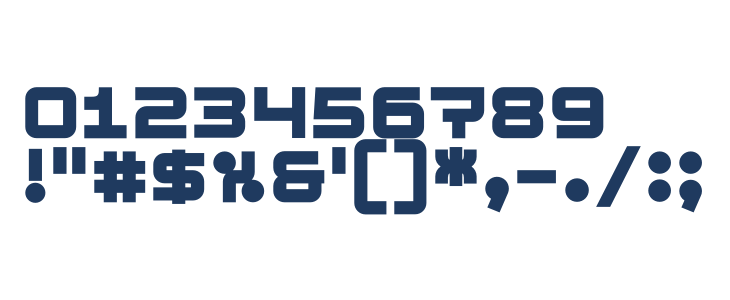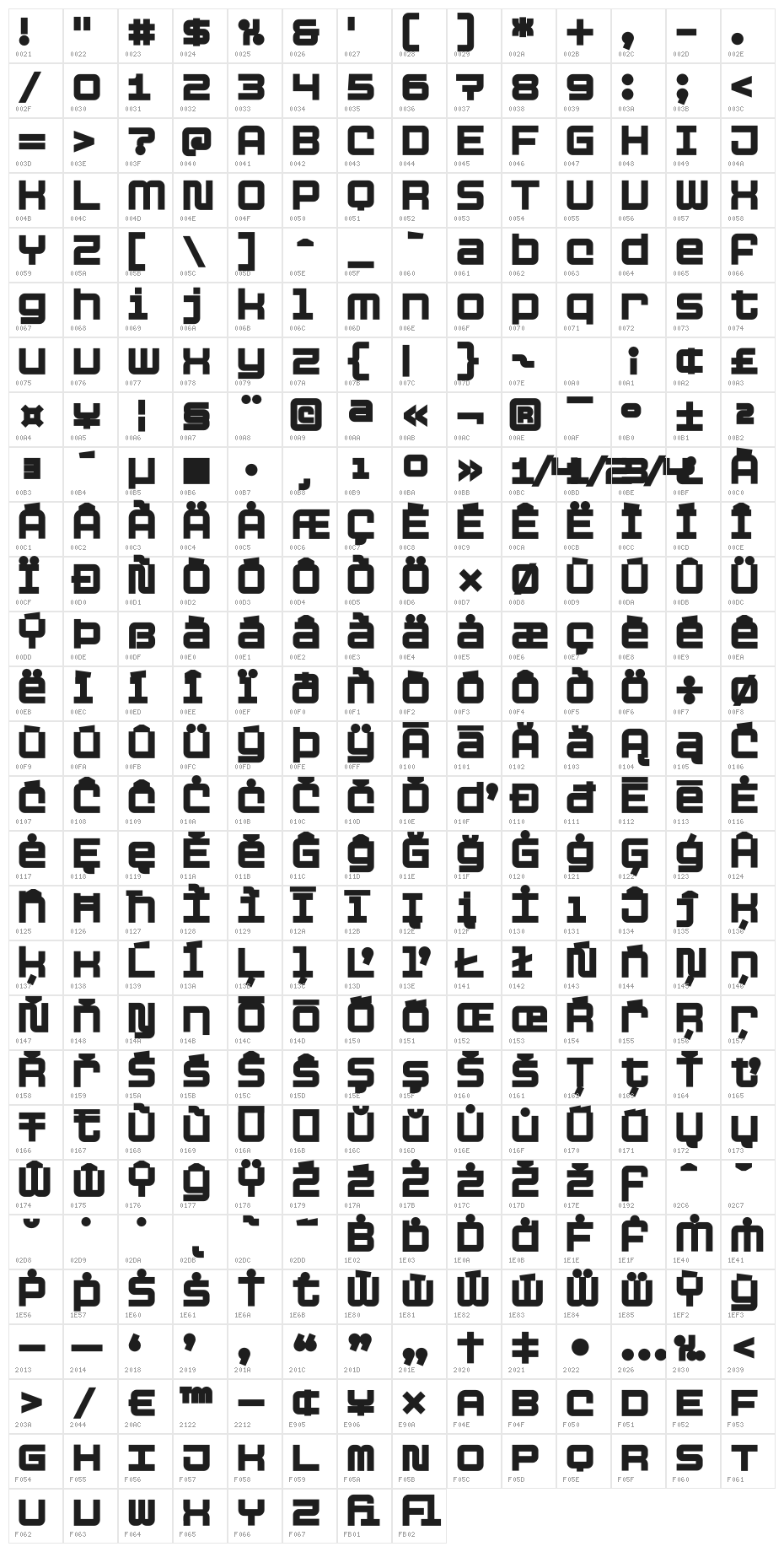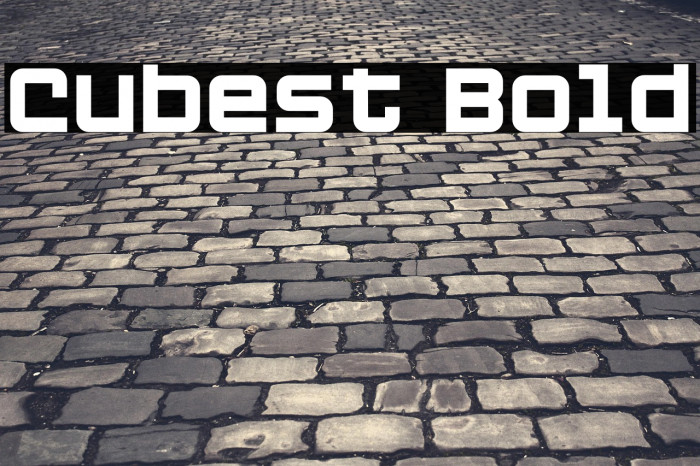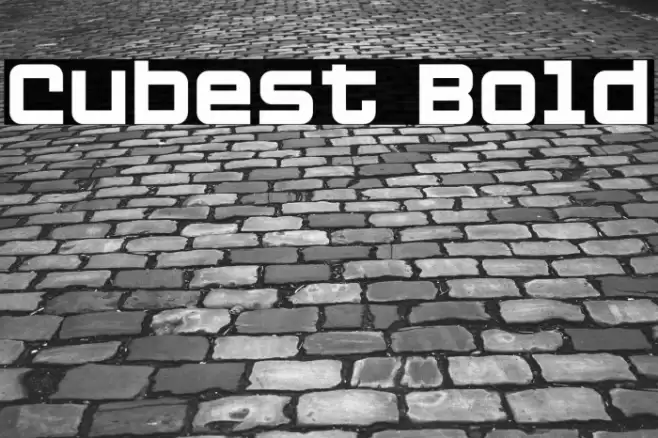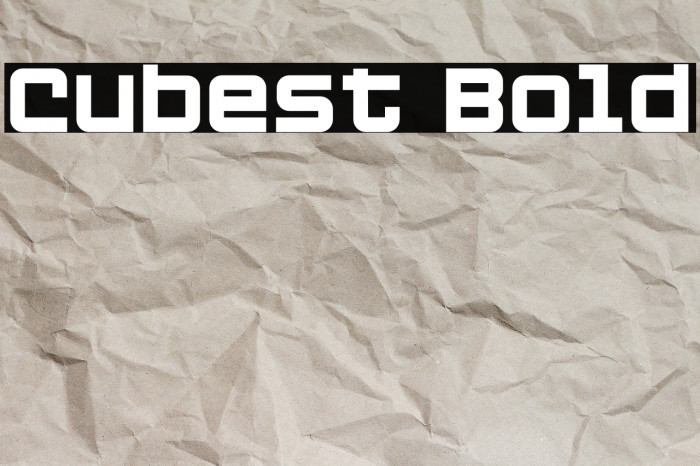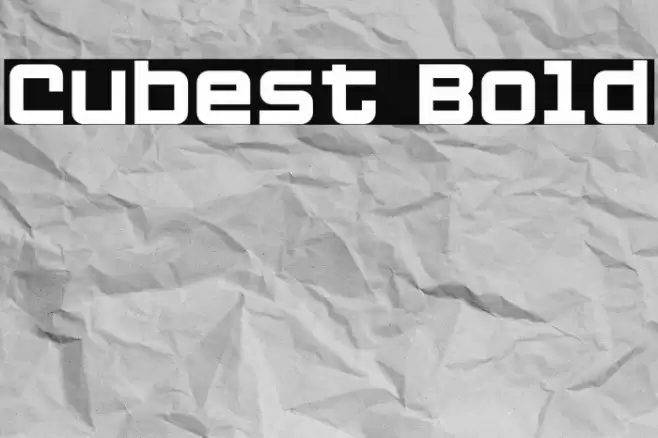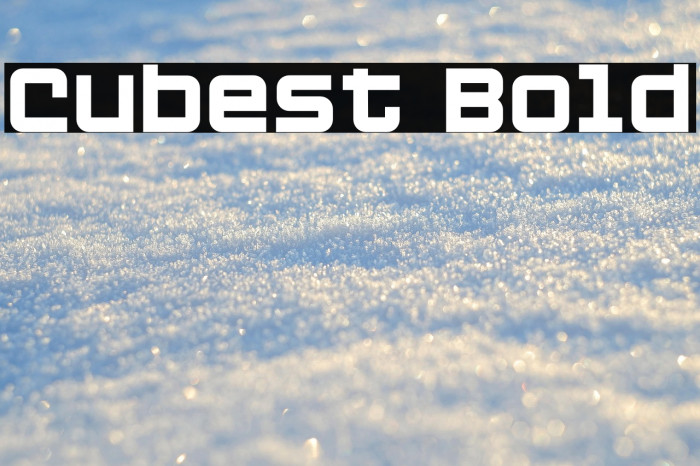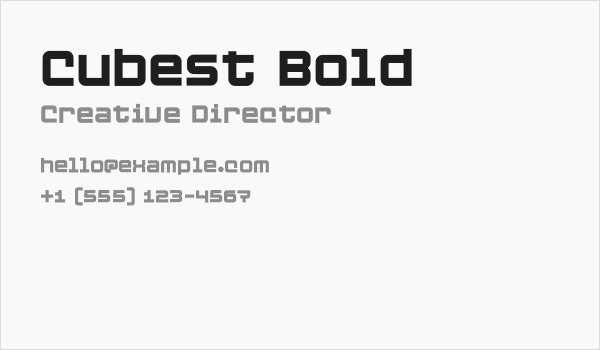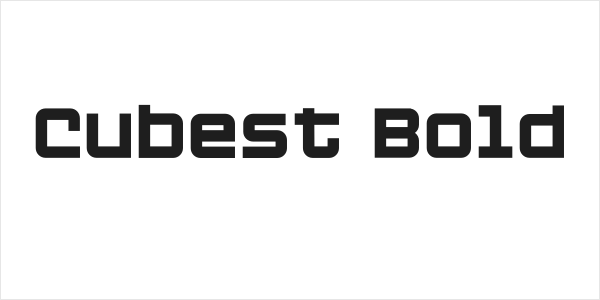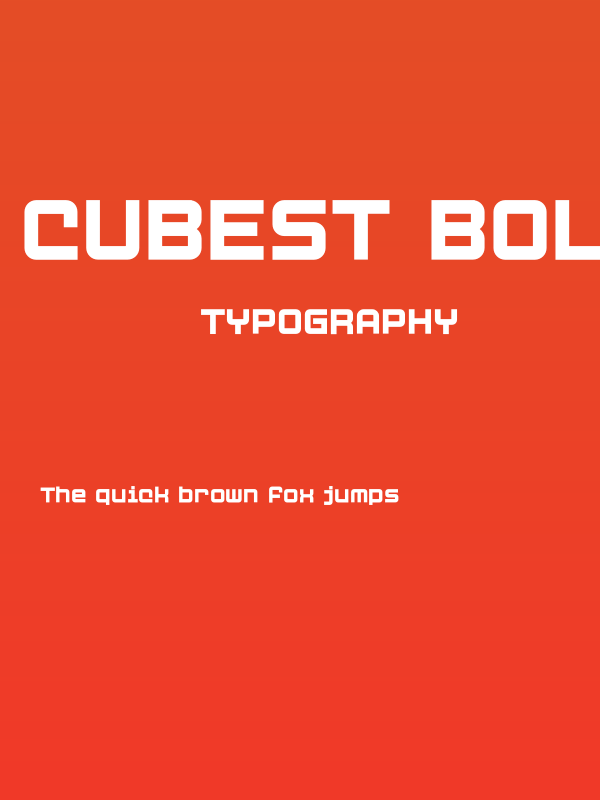
Cubest Bold Font
Cubest Bold Description
This font features a bold, geometric design with a strong, modern aesthetic. Its characters are constructed with uniform stroke widths, giving it a monospaced appearance. The squared-off edges and consistent line thickness contribute to a clean and structured look, making it highly legible. The uppercase and lowercase letters maintain a cohesive style, with the lowercase letters mirroring the uppercase in form but with reduced height. The numerals and special characters are designed to match the overall geometric theme, ensuring visual harmony across all text. This font's boldness and clarity make it suitable for impactful design projects.
| Use Case | Headlines, Logos, Digital Interfaces |
| Proposed Projects | Ideal for technology branding, modern posters, digital interfaces, and video game design. |